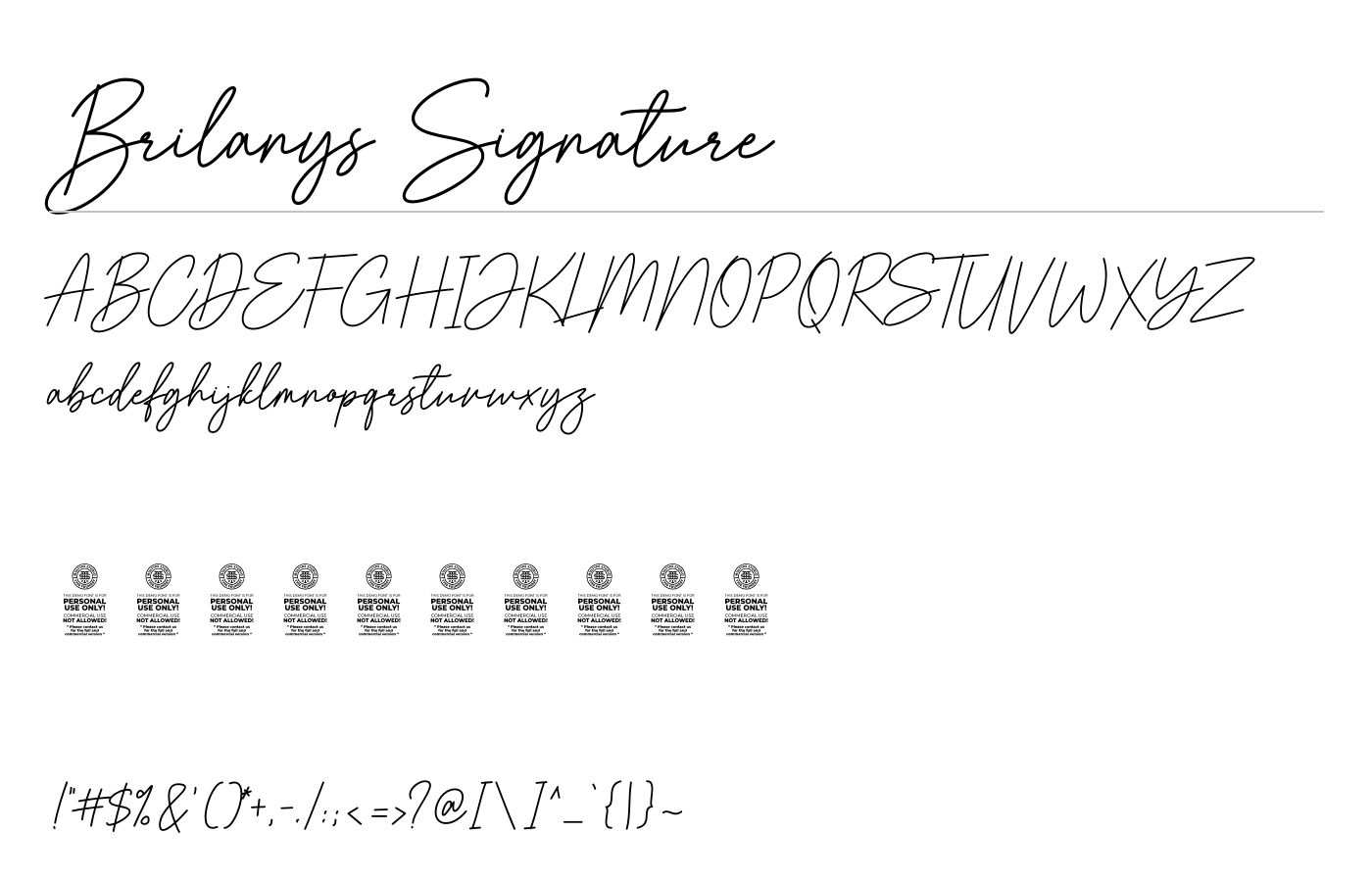
Brilanys Signature Font is a delicate, elegant script with a handwritten feel, characterized by its thin, flowing strokes and a natural, airy rhythm. Its light weight and smooth, connected letterforms make it perfect for conveying a personal, sophisticated touch, ideal for branding, invitations, and stylish editorial designs that seek a refined yet approachable look. This font shines when used in logos, fashion, and luxury contexts where a modern, graceful signature style is desired.
Brilanys Signature Font